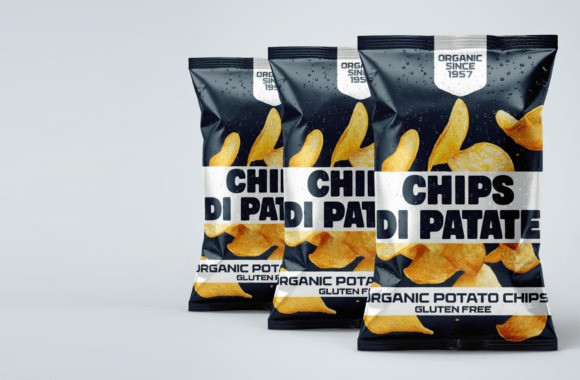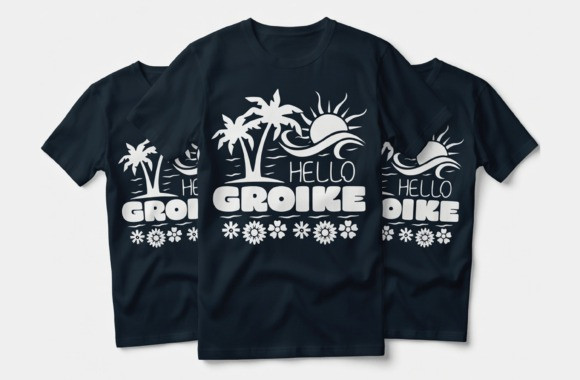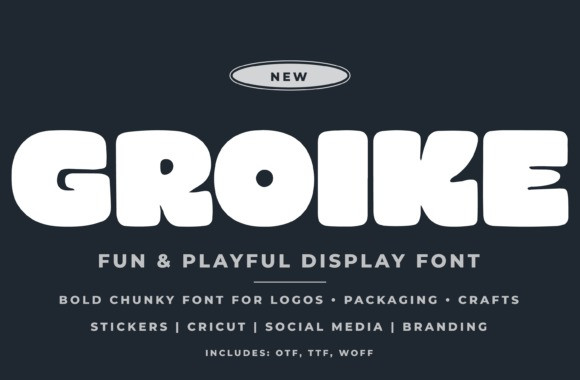
GROIKE FONT
Groike Font a fun and playful display font designed for maximum approachability. This ultra-bold, chunky typeface features soft, pillowy letterforms and tight negative space, creating a friendly “bubble” aesthetic that jumps off the screen. With its heavy weight and rhythmic, hand-drawn bounce, Groike is the premier choice for vibrant snack packaging, independent toy store logos, children’s book titles, and high-energy social media headers.